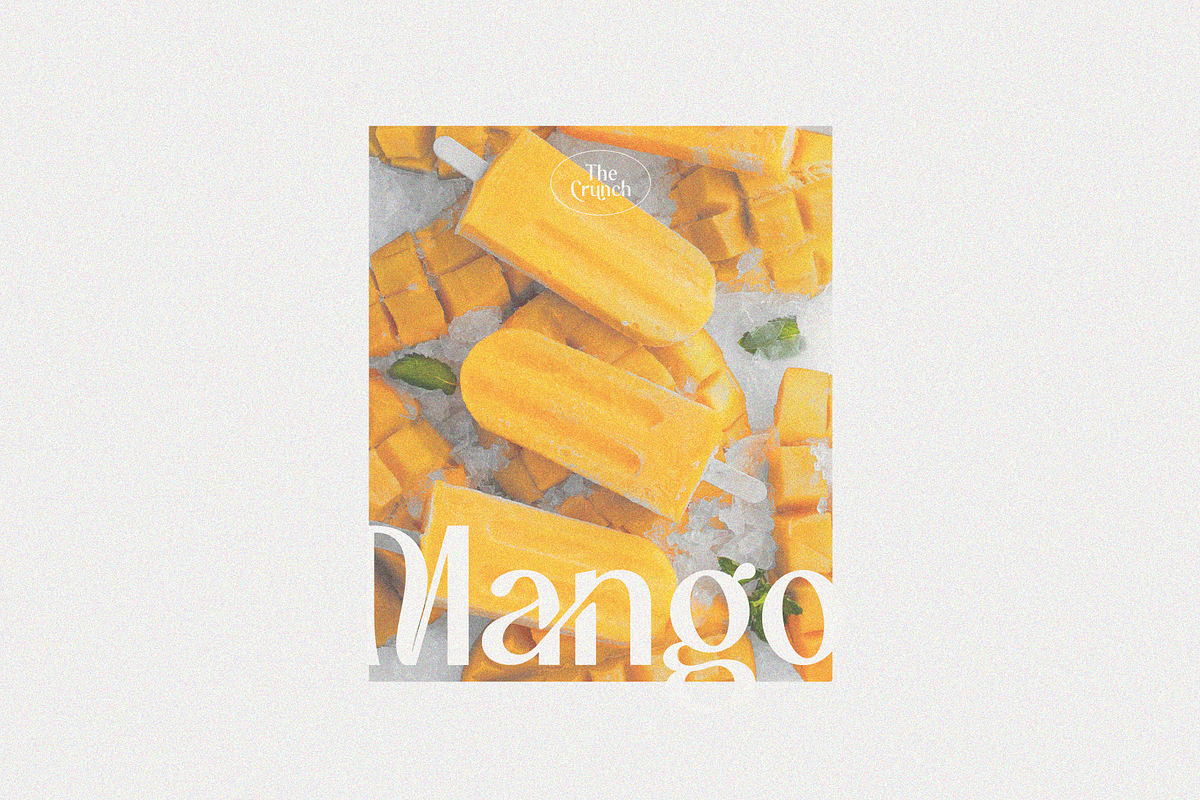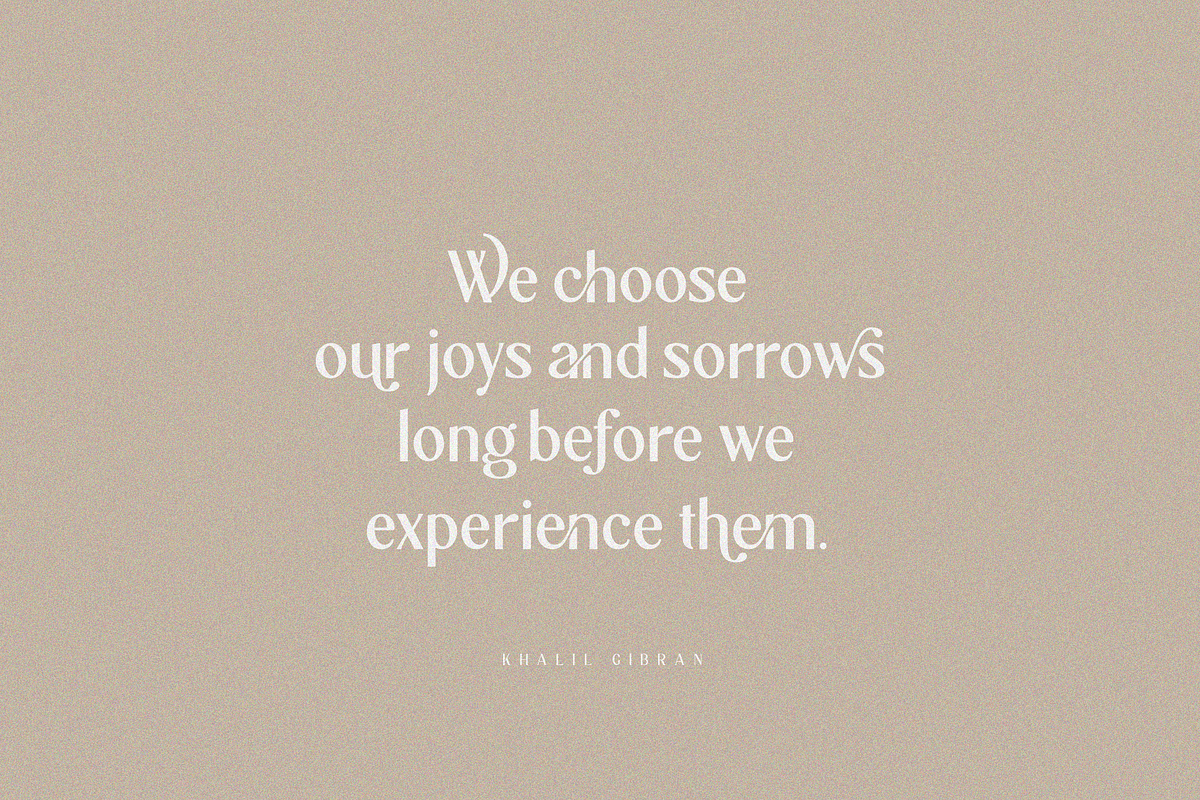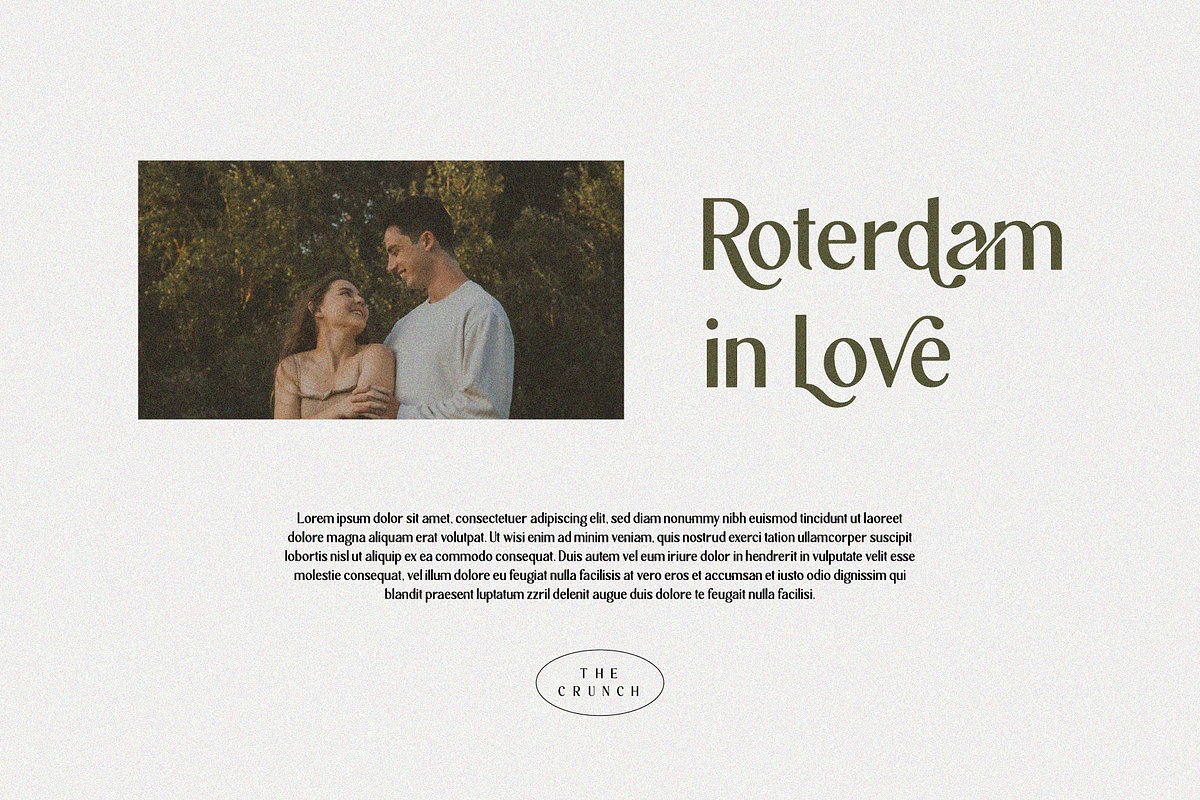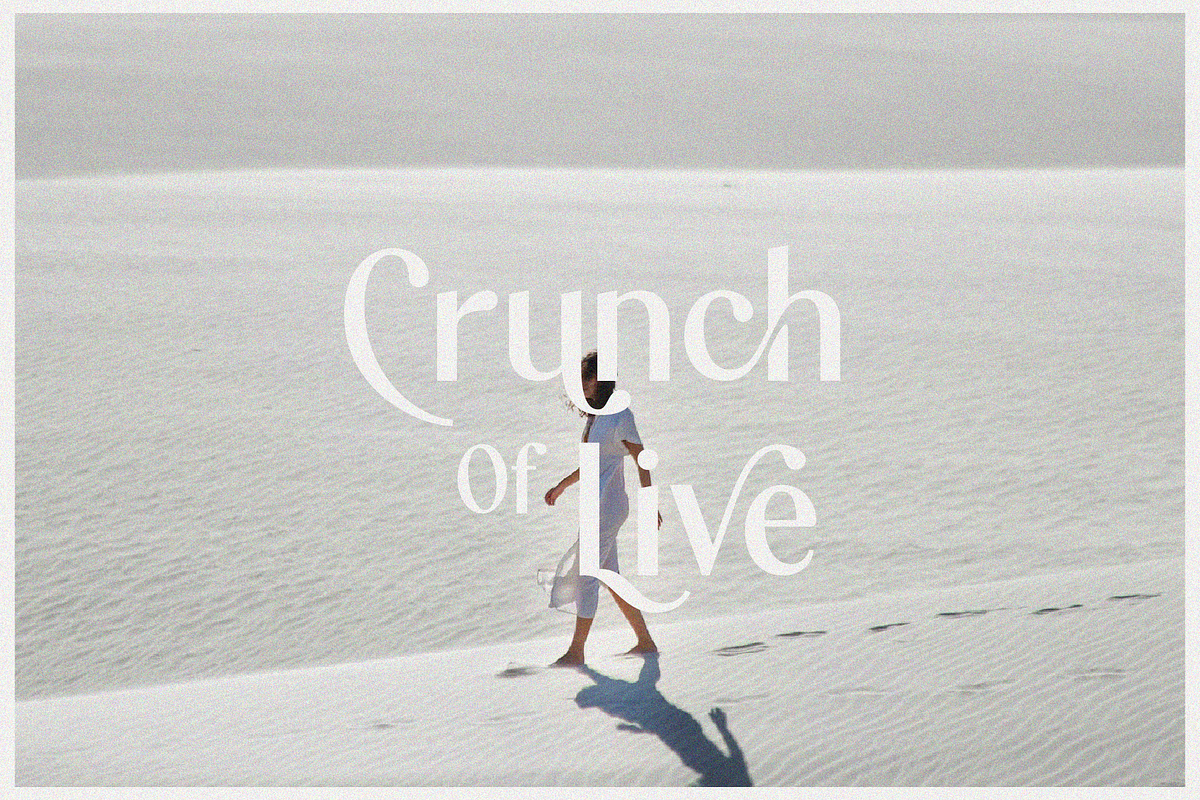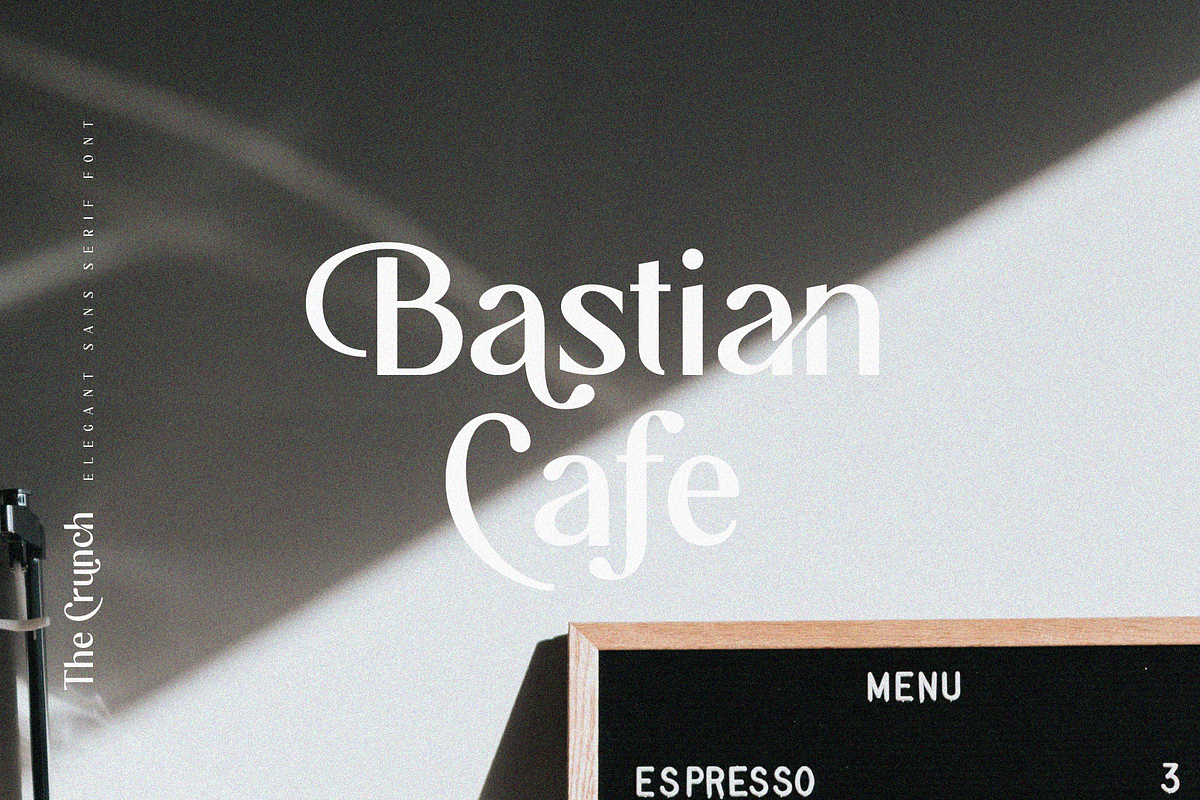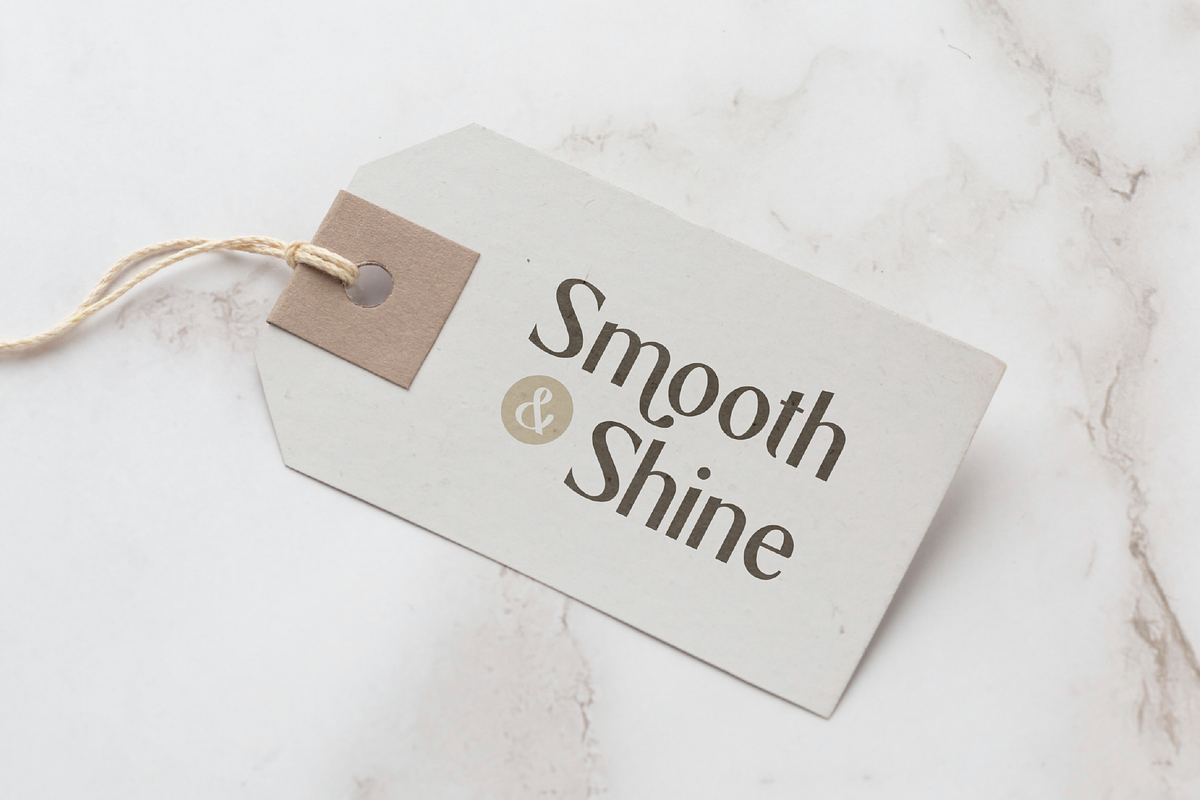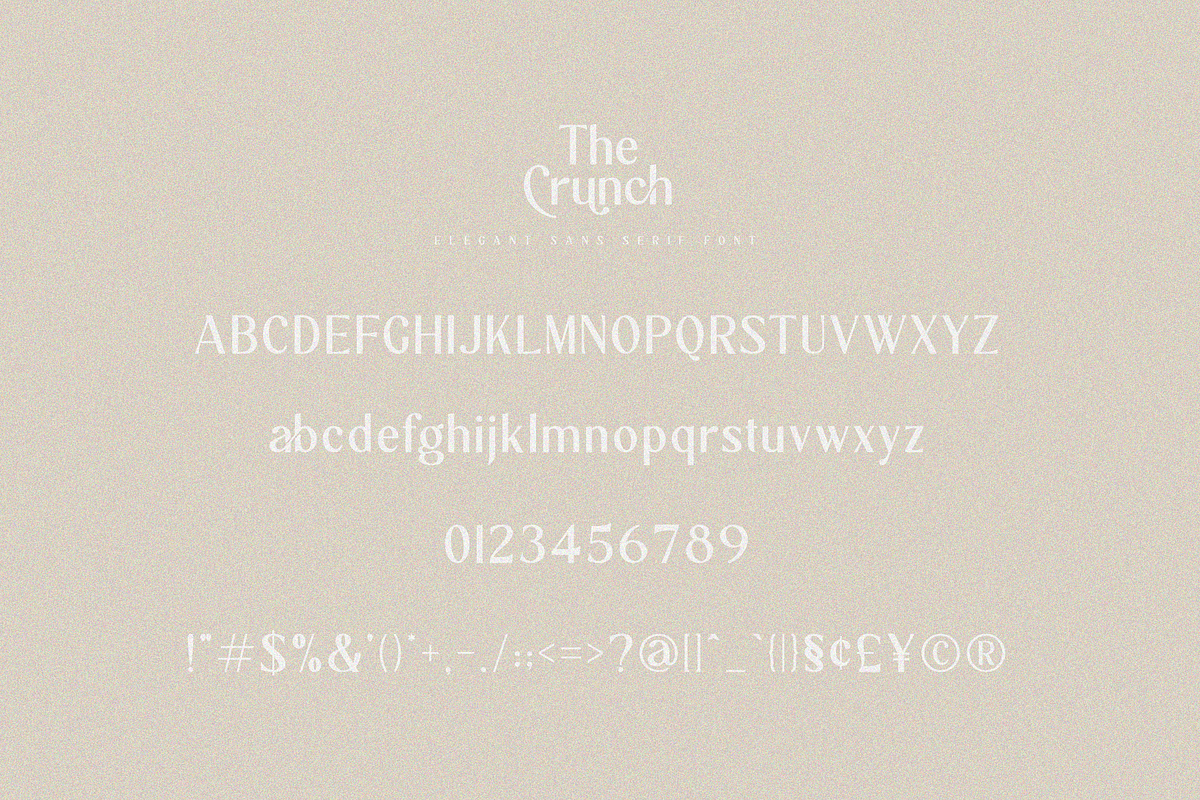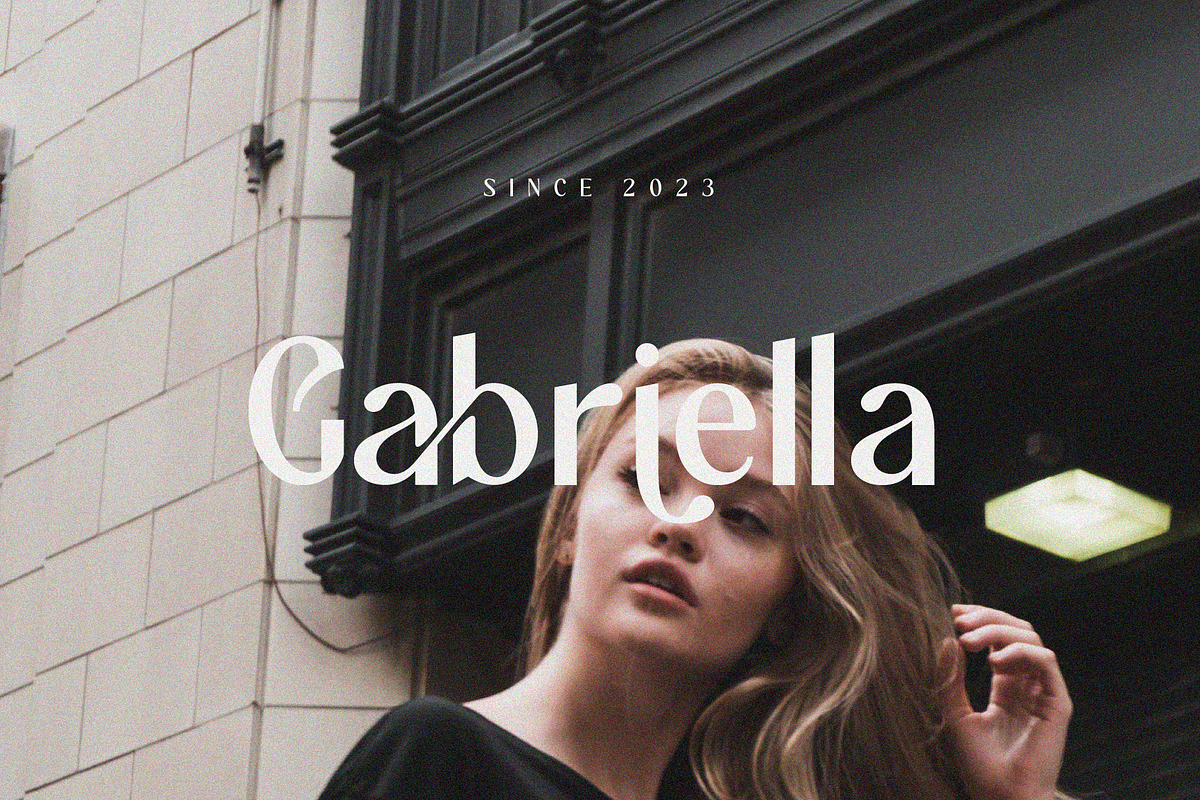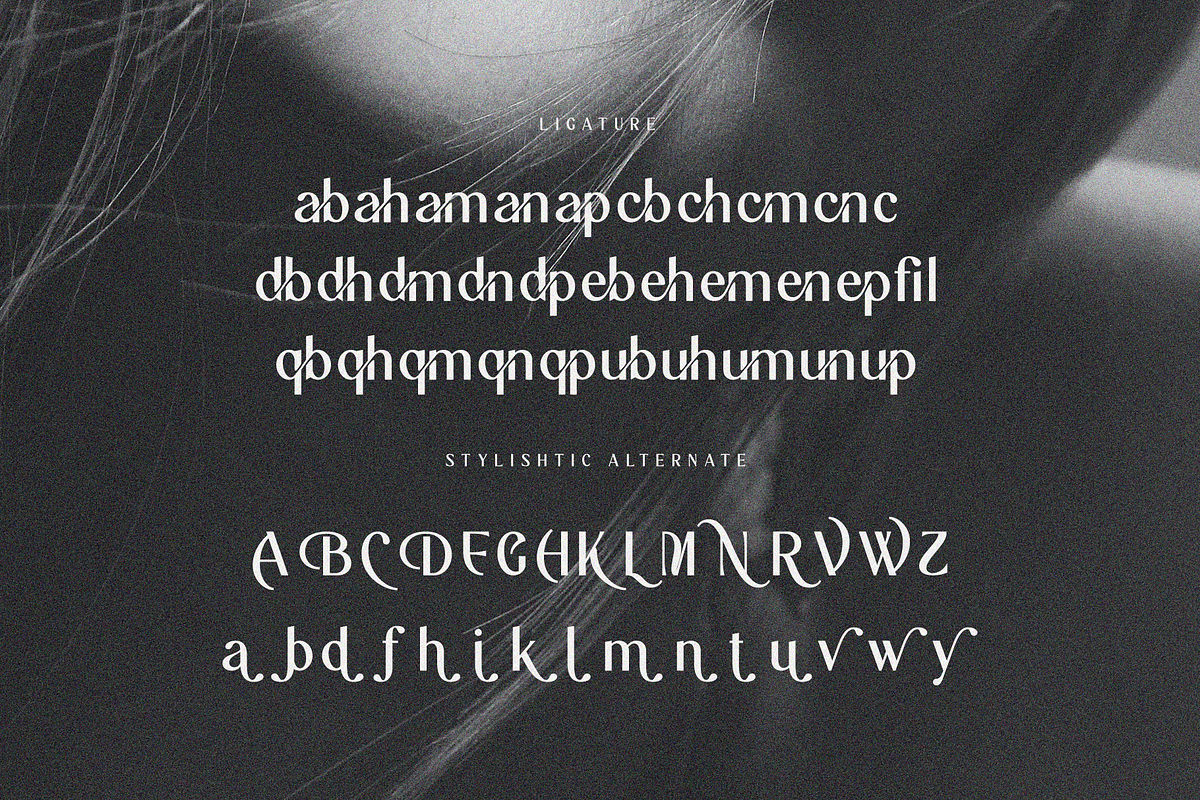
The Crunch - Elegant Sans Serif Font
Introducing "The Crunch - Elegant Sans Serif Font"
The Crunch is a ligature serif font that perfect for any kind design project like branding, logo design, poster, embroidery and much more. This font has elegant ligature and much of alternate, so you can mix and match to create sensational design.